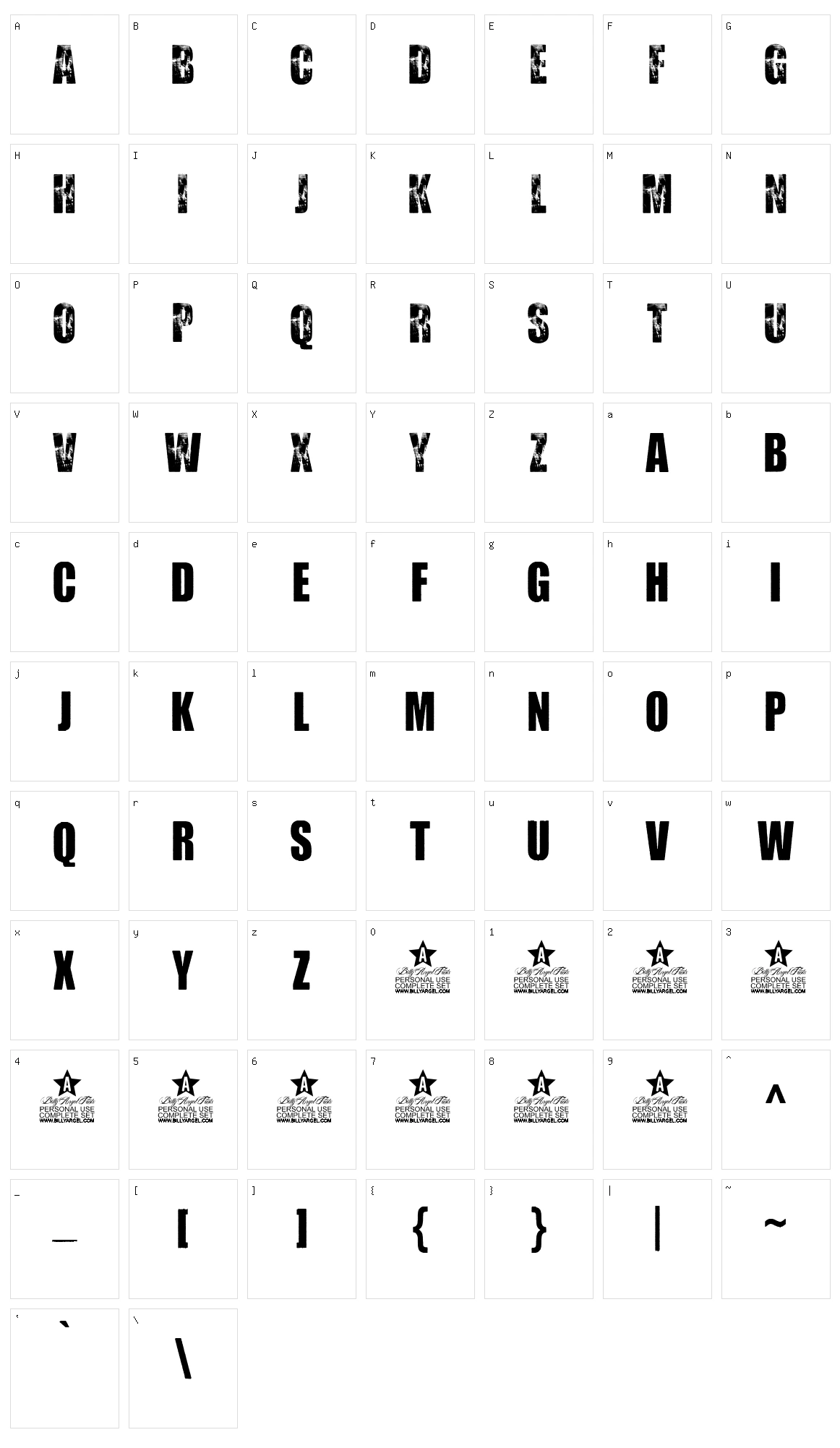
The free font Watcher is carefully designed by Billy Argel Fonts ®, showcasing a thoughtful balance of creativity and usability and falls under the Horror font style. When you download the ZIP file, it contains only 5468.09 KB of font files, making it lightweight and quick to download. Please review the license details below to understand permitted usage and distribution rights. If license information is not available, we recommend using this font for personal projects only or contacting the author directly for commercial usage permissions.